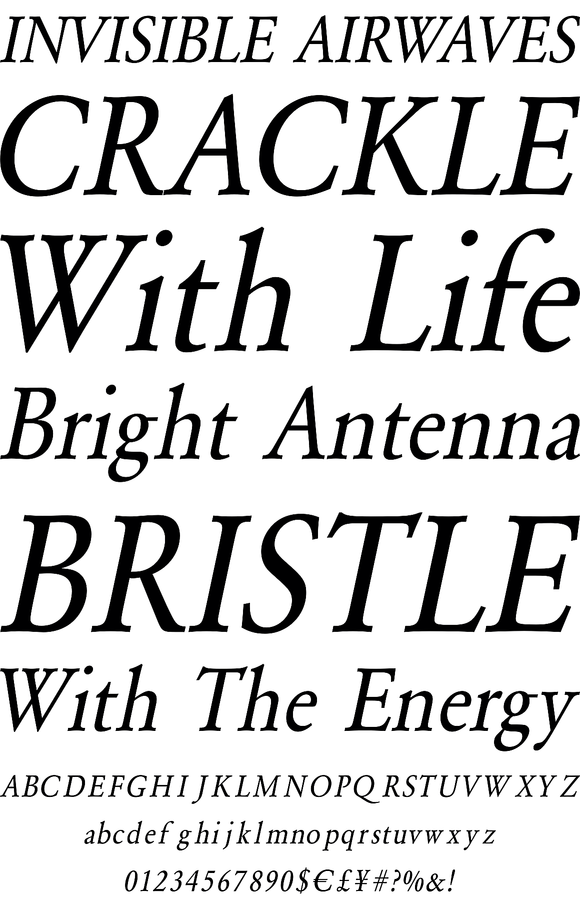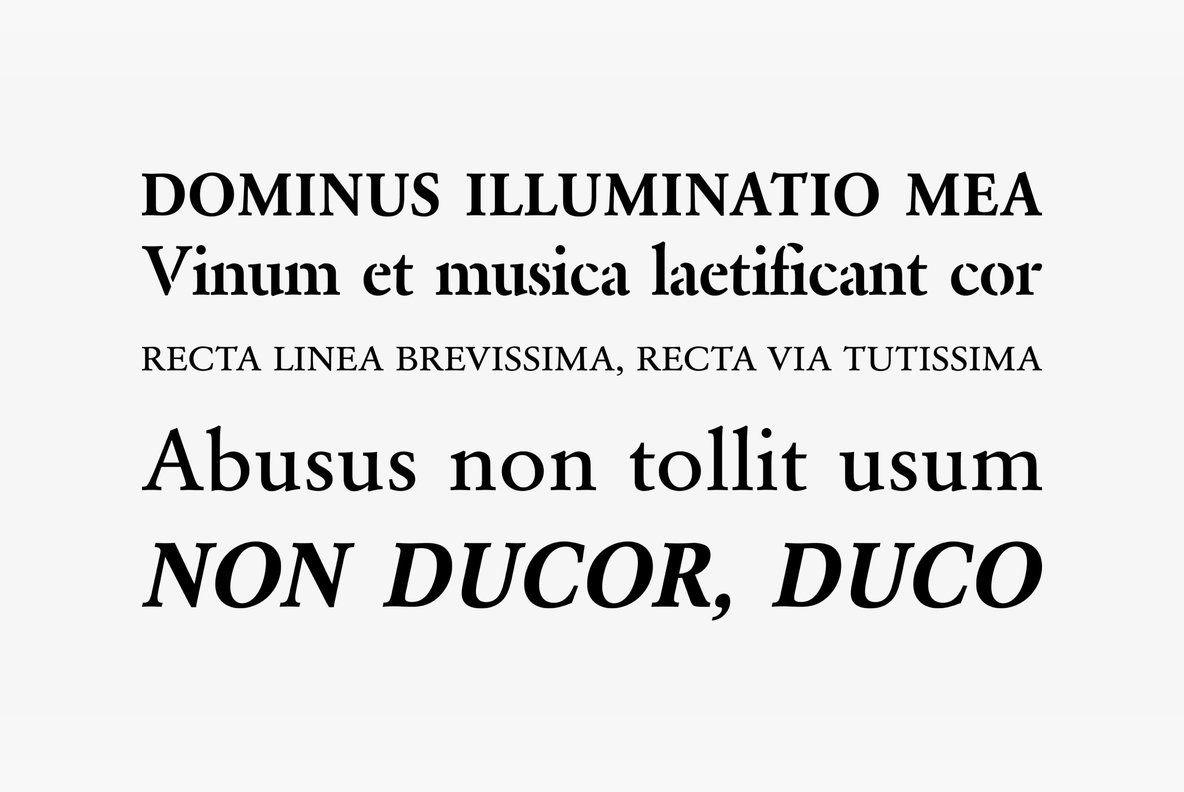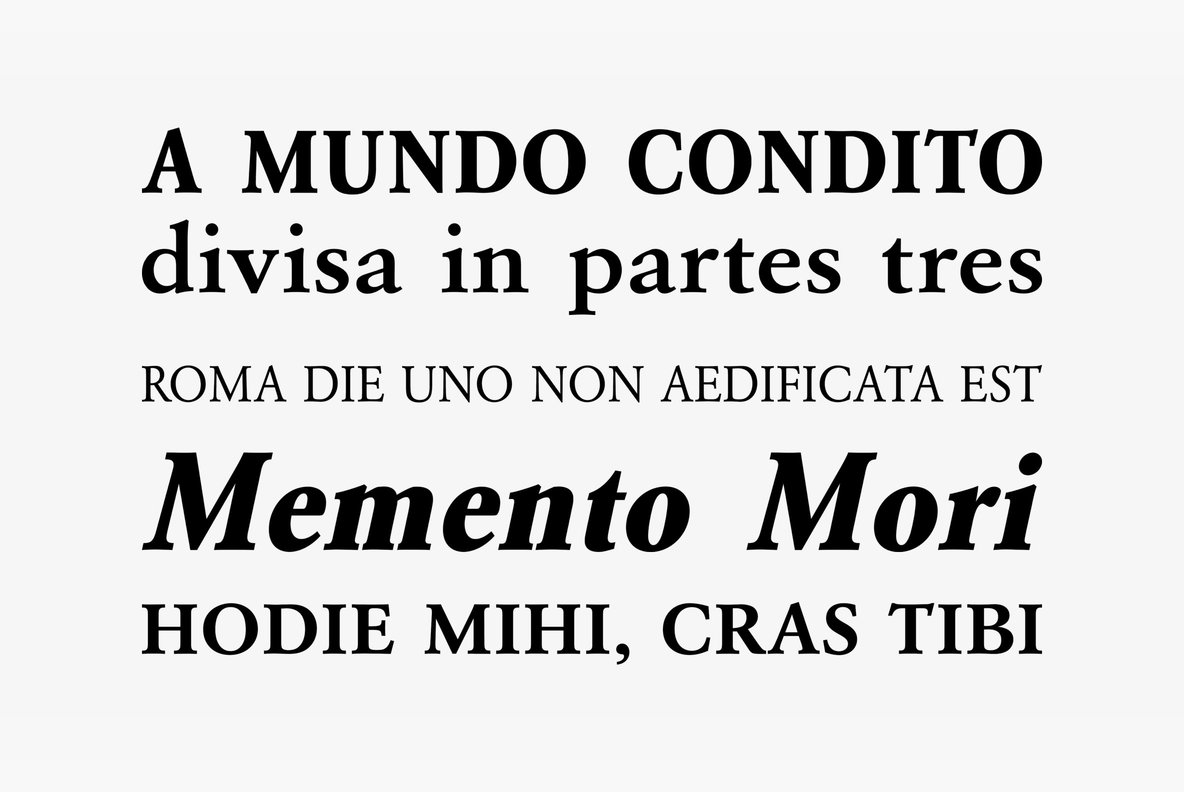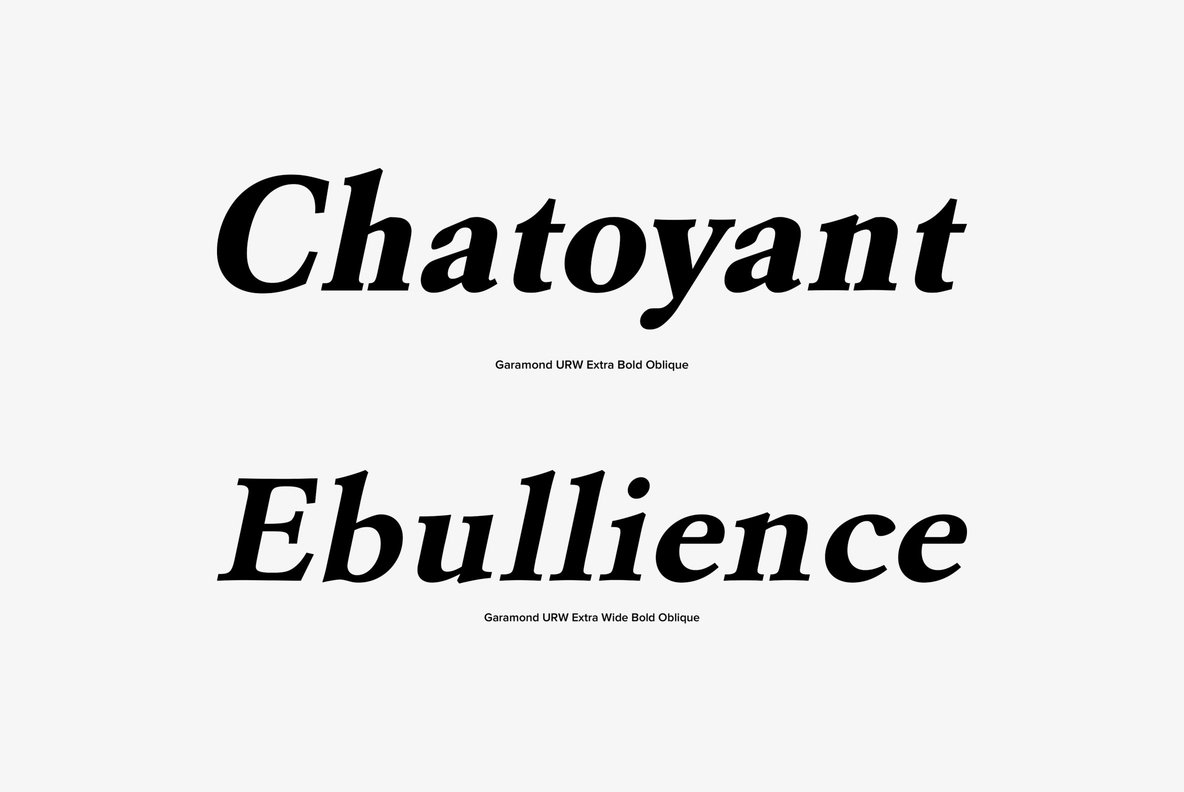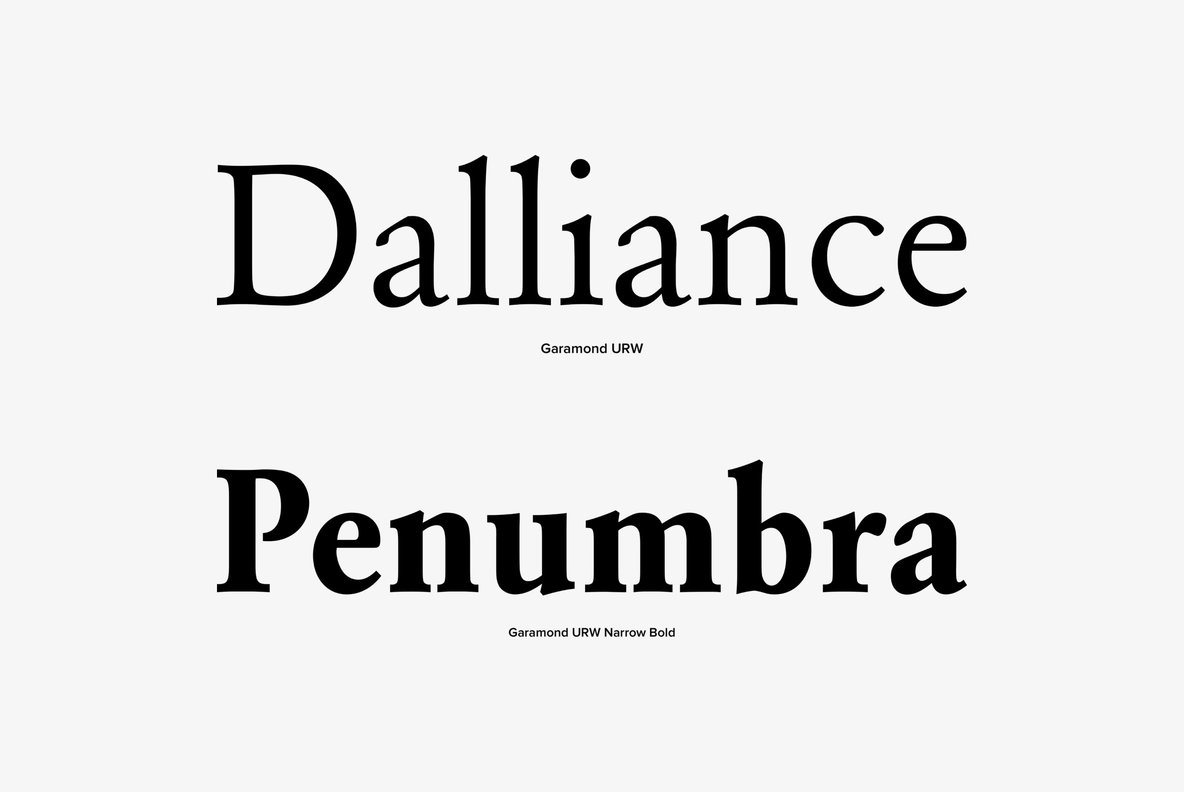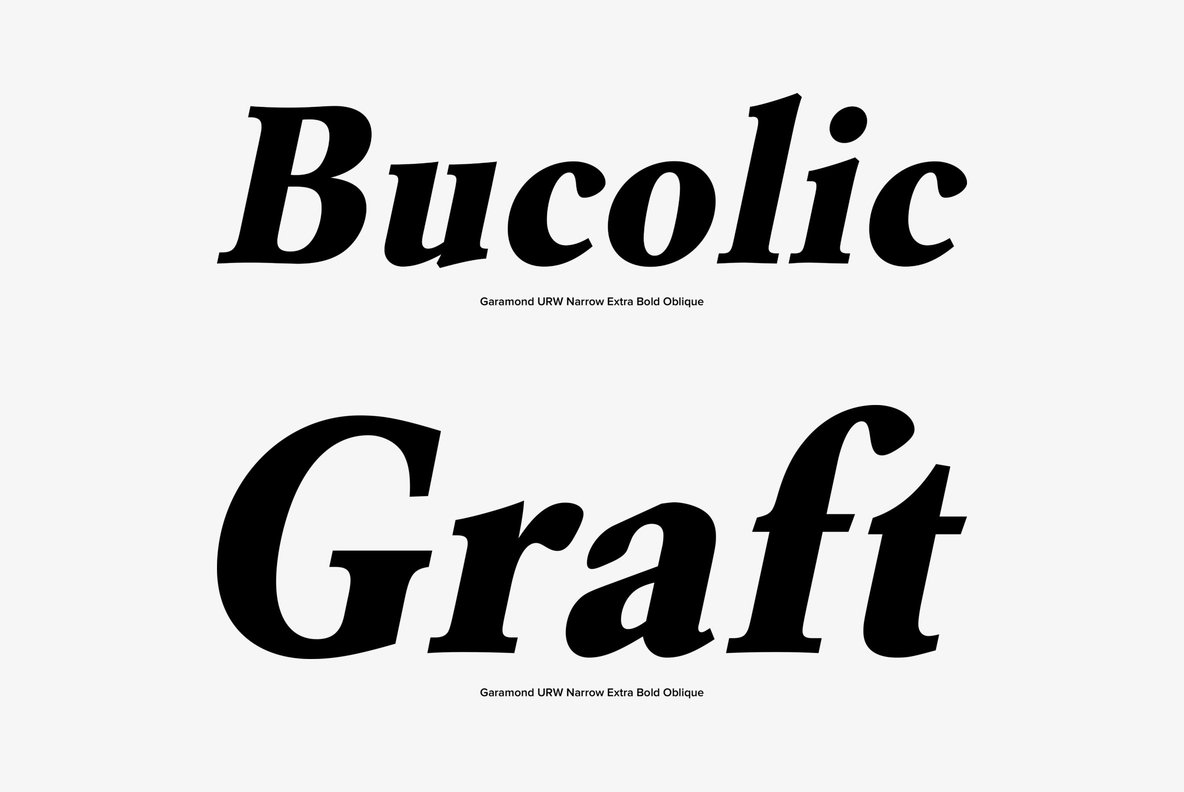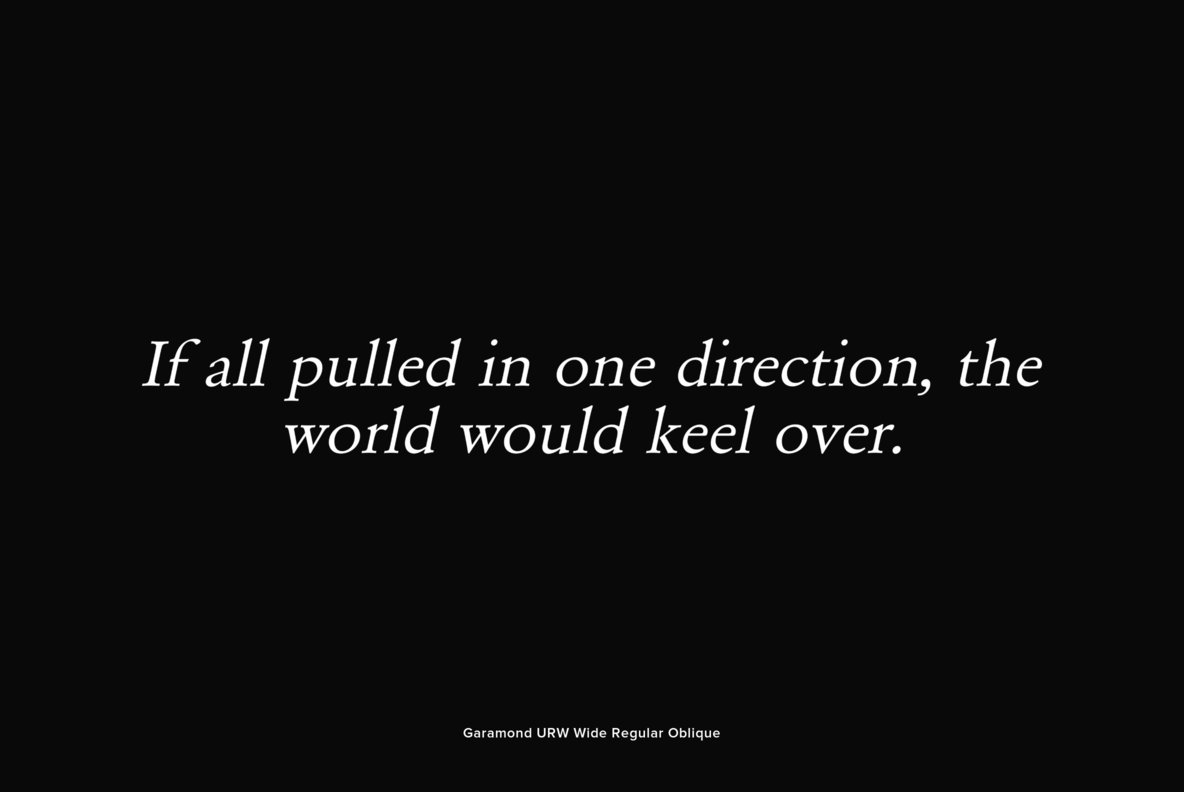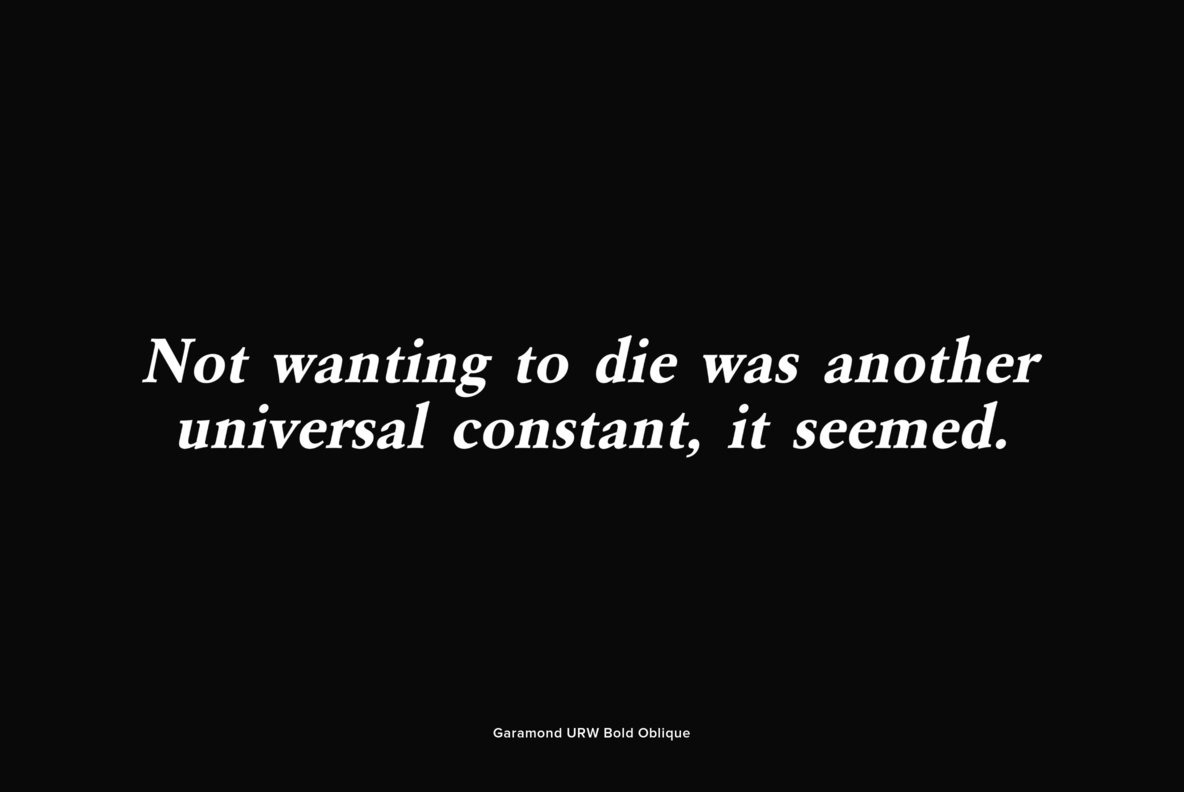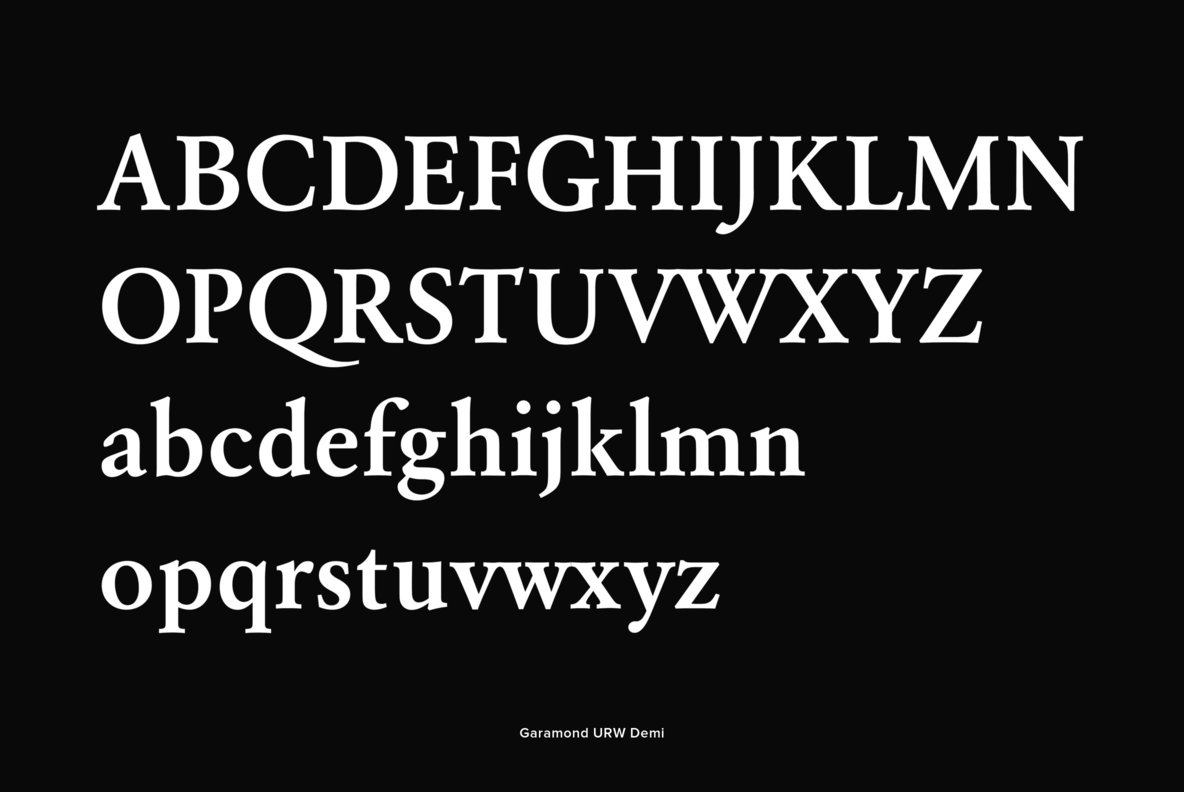
URW Garamond
URW Garamond is a 56 font weight family published by the German type foundry URW. Garamond is the name given to a group of old-style serif typefaces named for the punch-cutter Claude Garamond. Most of the Garamond faces are more closely related to the work of a later punch-cutter, Jean Jannon. A direct relationship between Garamond's letterforms and contemporary type can be found in the Roman versions of the typefaces Adobe Garamond, Granjon, Sabon, and Stempel Garamond.
Garamond's letterforms convey a sense of fluidity and consistency. Some unique characteristics in his letters are the small bowl of the a and the small eye of the e. Long extenders and top serifs have a downward slope.
Garamond is considered to be among the most legible and readable serif typefaces for use in print (offline) applications. It has also been noted to be one of the most eco-friendly major fonts when it comes to ink usage.